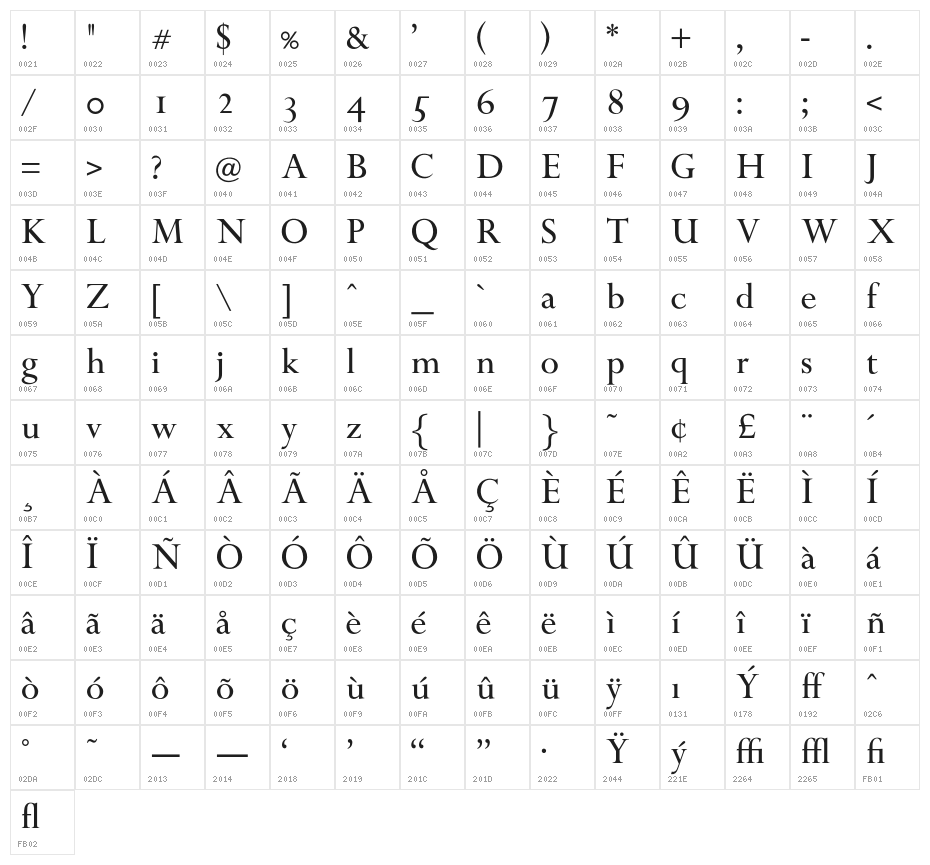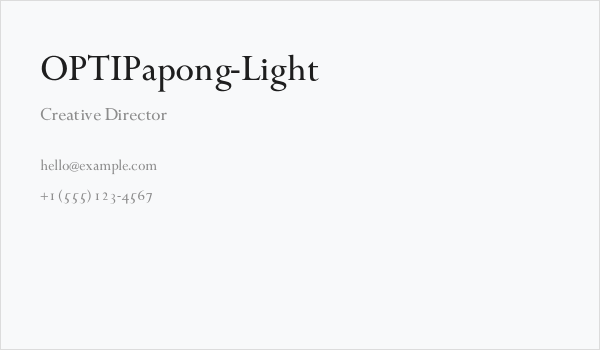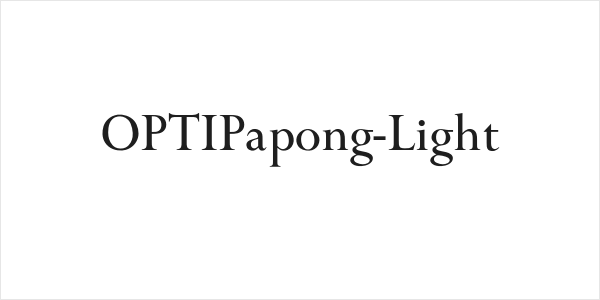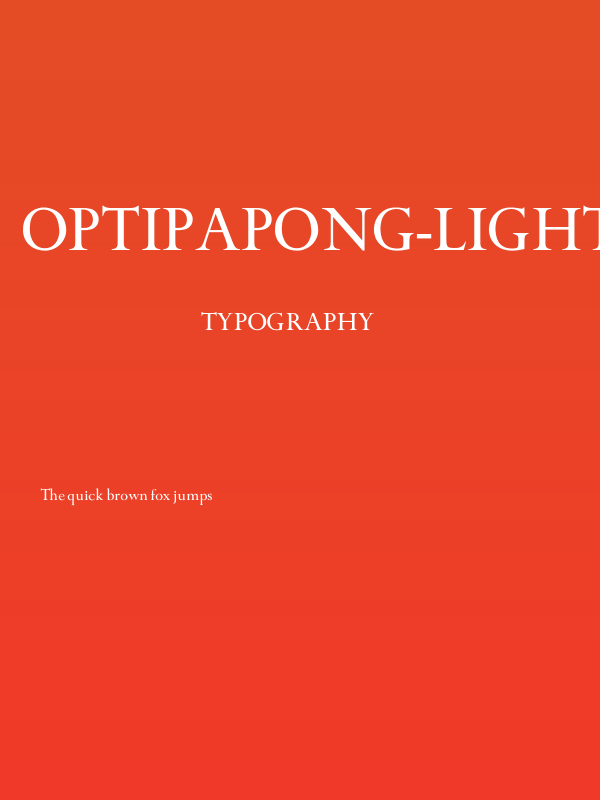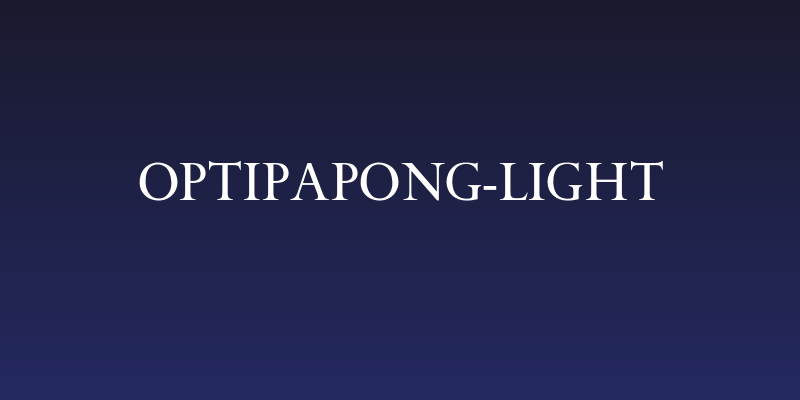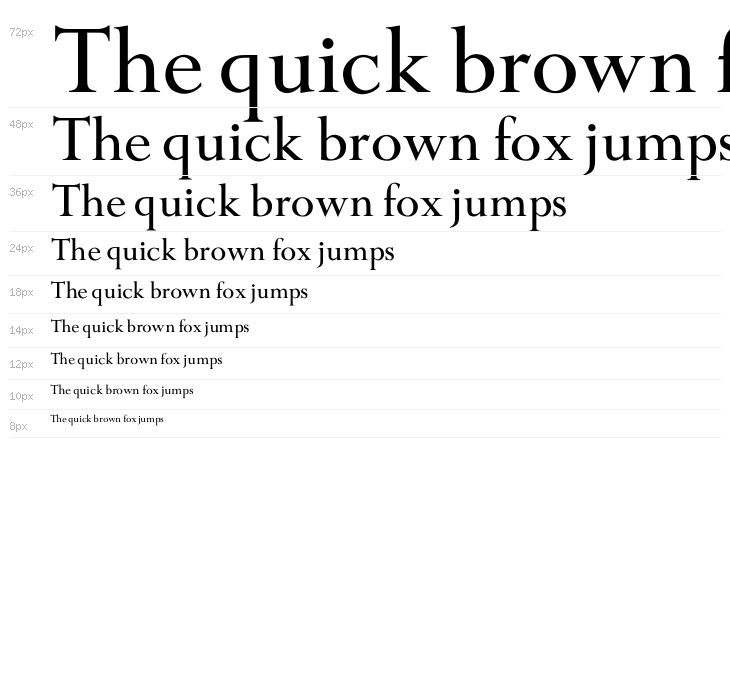
OPTIPapong-Light Font
OPTIPapong-Light Description
This font features a classic serif style with elegant, thin strokes and a refined appearance. The characters exhibit a traditional form with slight variations in stroke width, giving it a sophisticated and timeless look. The uppercase letters are stately and well-proportioned, while the lowercase letters maintain a graceful flow. The numerals are clear and distinct, complementing the overall aesthetic. Special characters are designed with the same attention to detail, ensuring consistency across all glyphs. This font is suitable for projects that require a touch of elegance and formality.
Overall StyleClassic
Proposed ProjectsIdeal for formal invitations, editorial design, book covers, and branding that requires a classic touch.